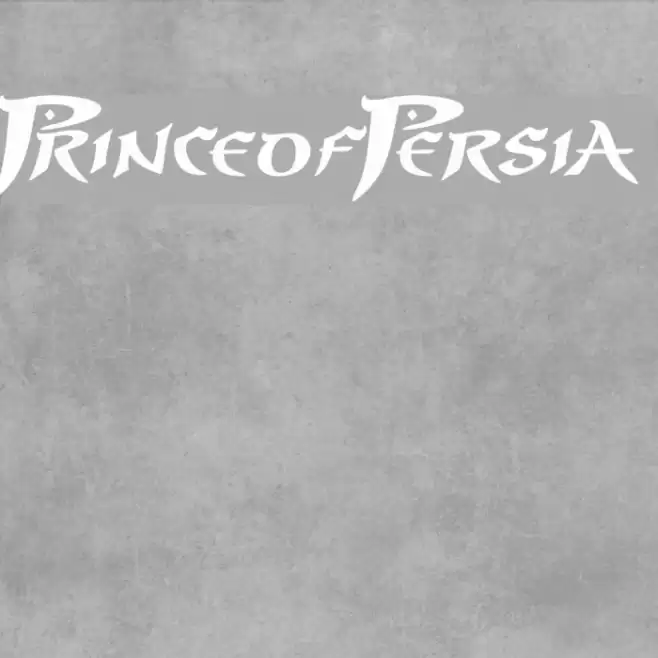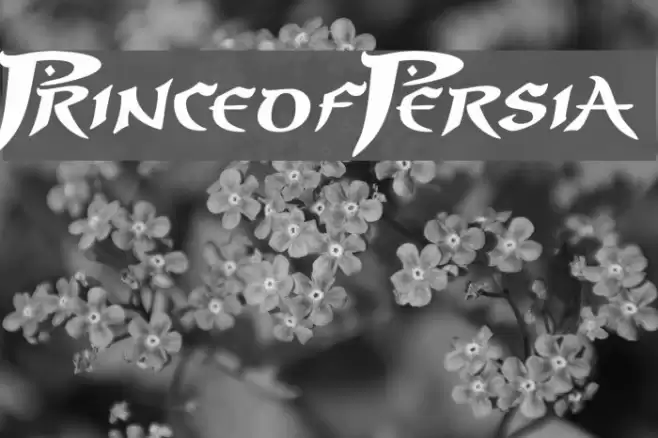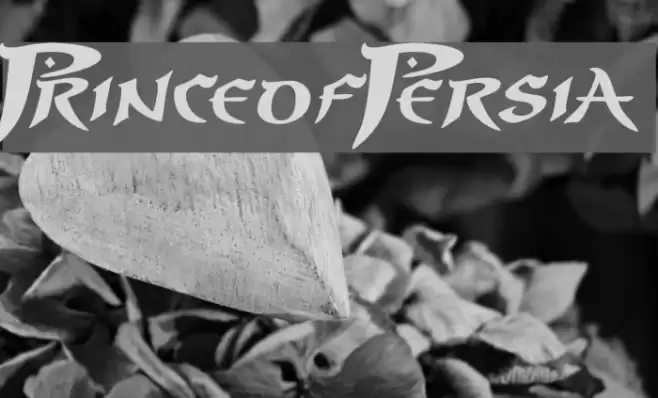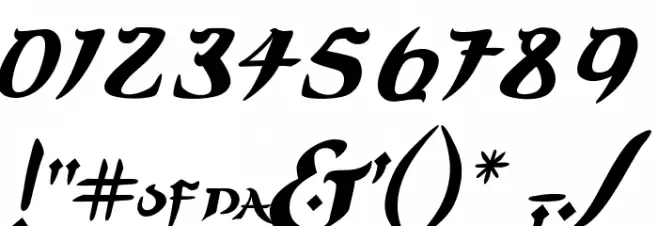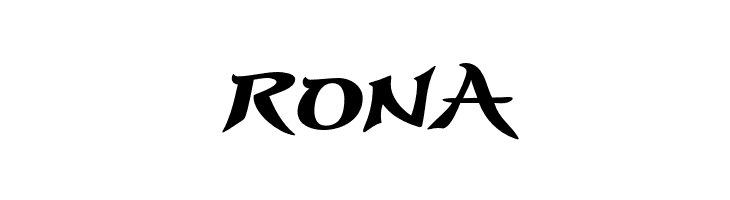
PrinceofPersia Font
PrinceofPersia Description
This font features a bold and dynamic style with sharp, angular edges and a flowing, calligraphic influence. The characters exhibit a sense of movement and energy, reminiscent of ancient scripts with a modern twist. The uppercase letters are particularly striking, with exaggerated curves and pointed serifs, while the lowercase letters maintain a consistent style, offering a cohesive look. The numerals and special characters complement the overall design, ensuring versatility across various uses. This font's unique aesthetic makes it suitable for projects that require a touch of drama and elegance.
A bold, dynamic font with sharp, angular edges and a calligraphic influence from Uncategorized fonts.